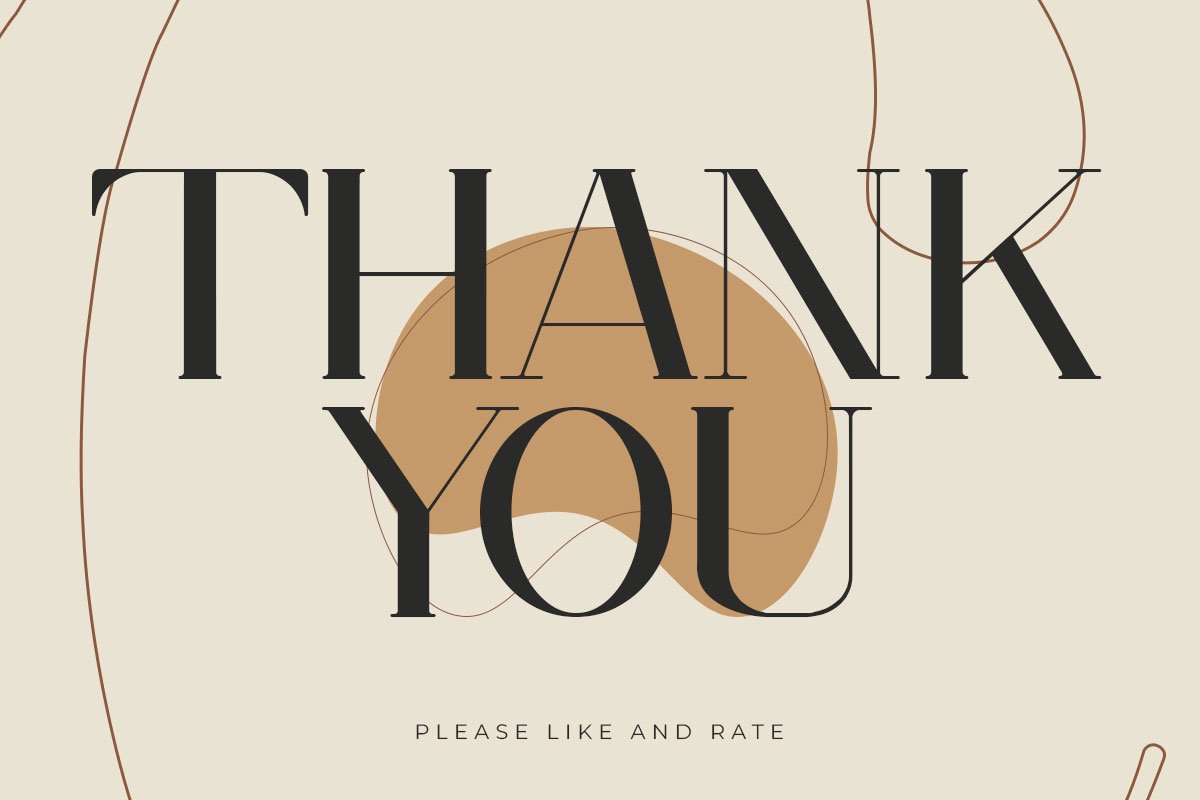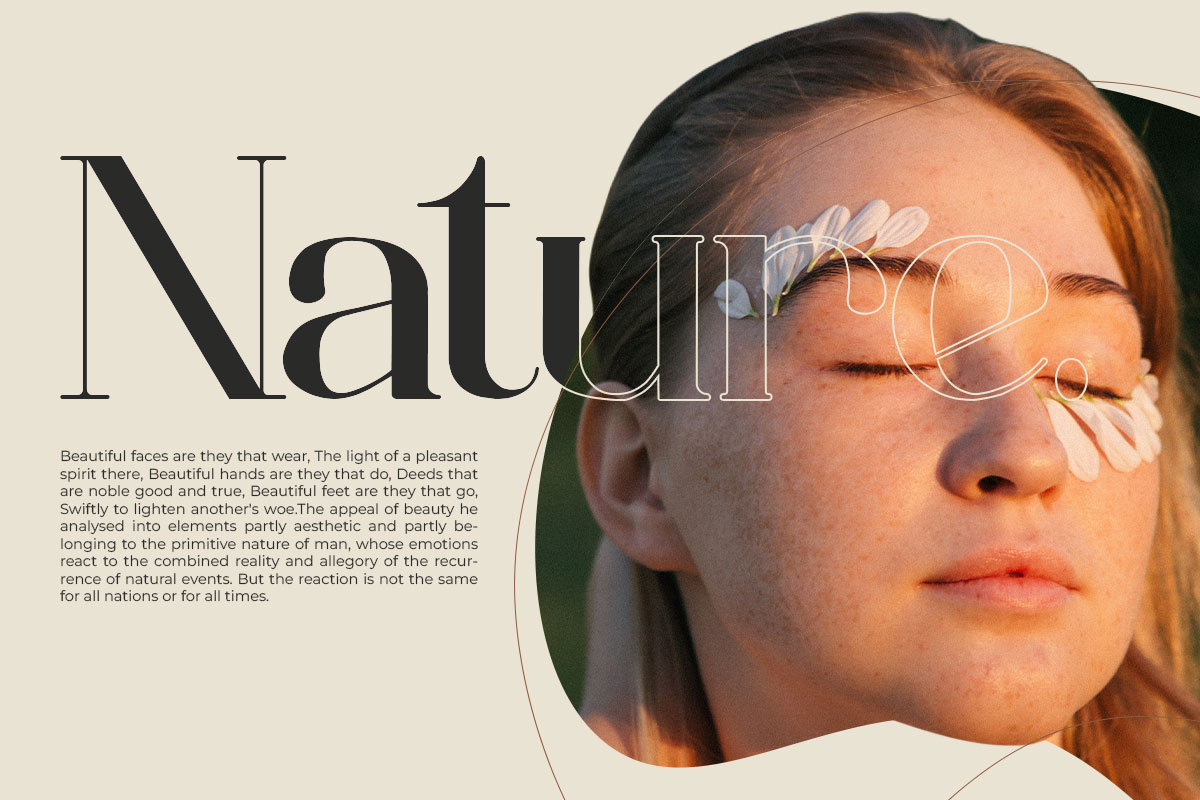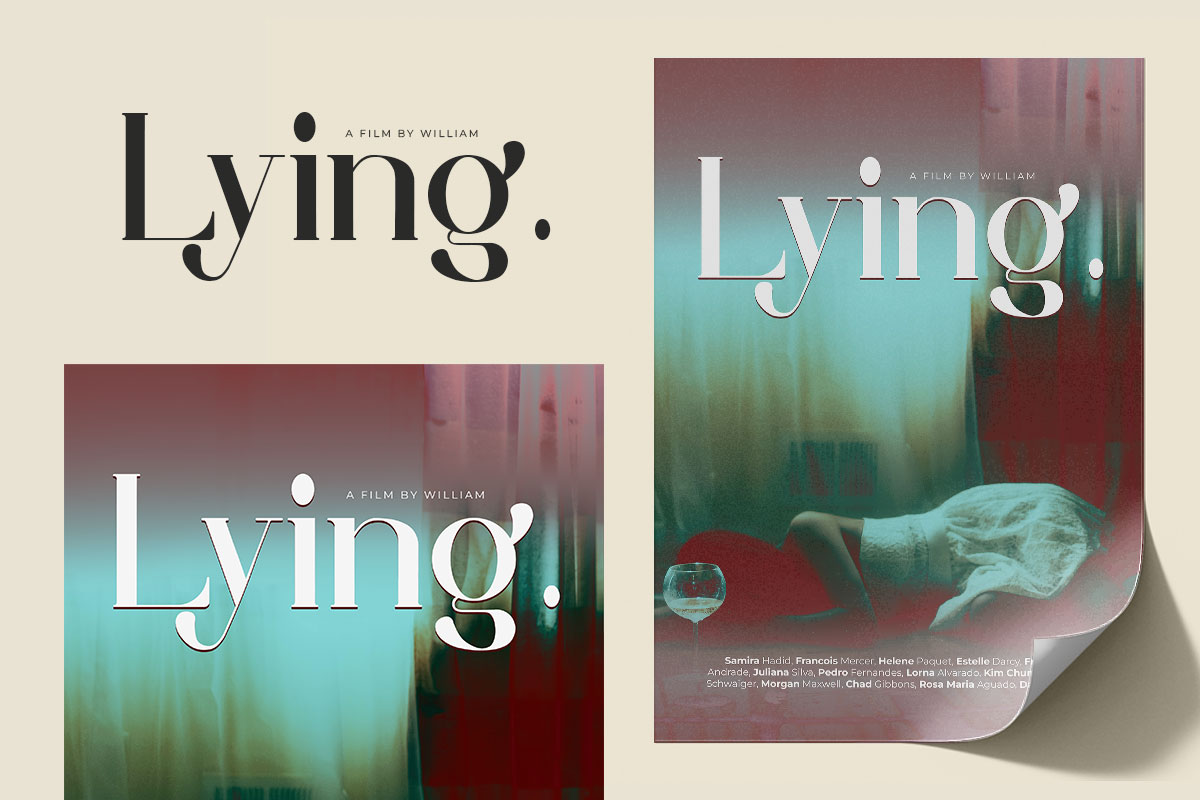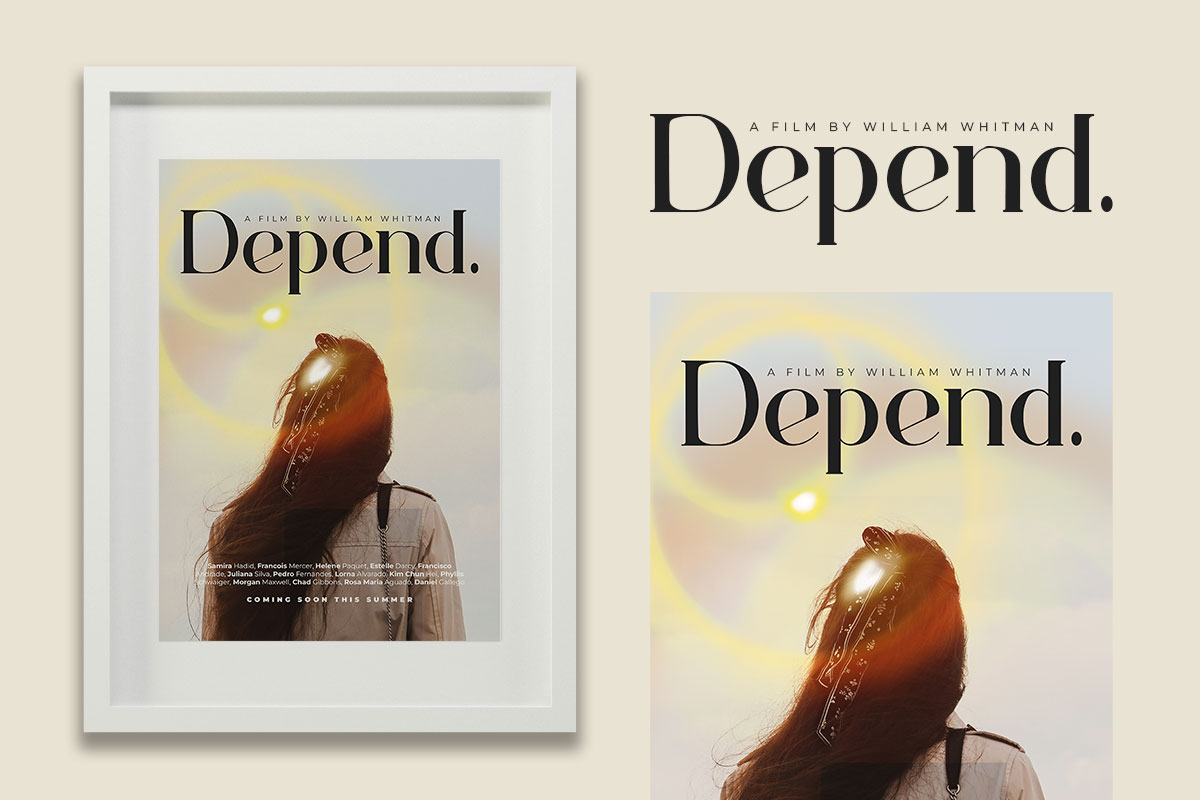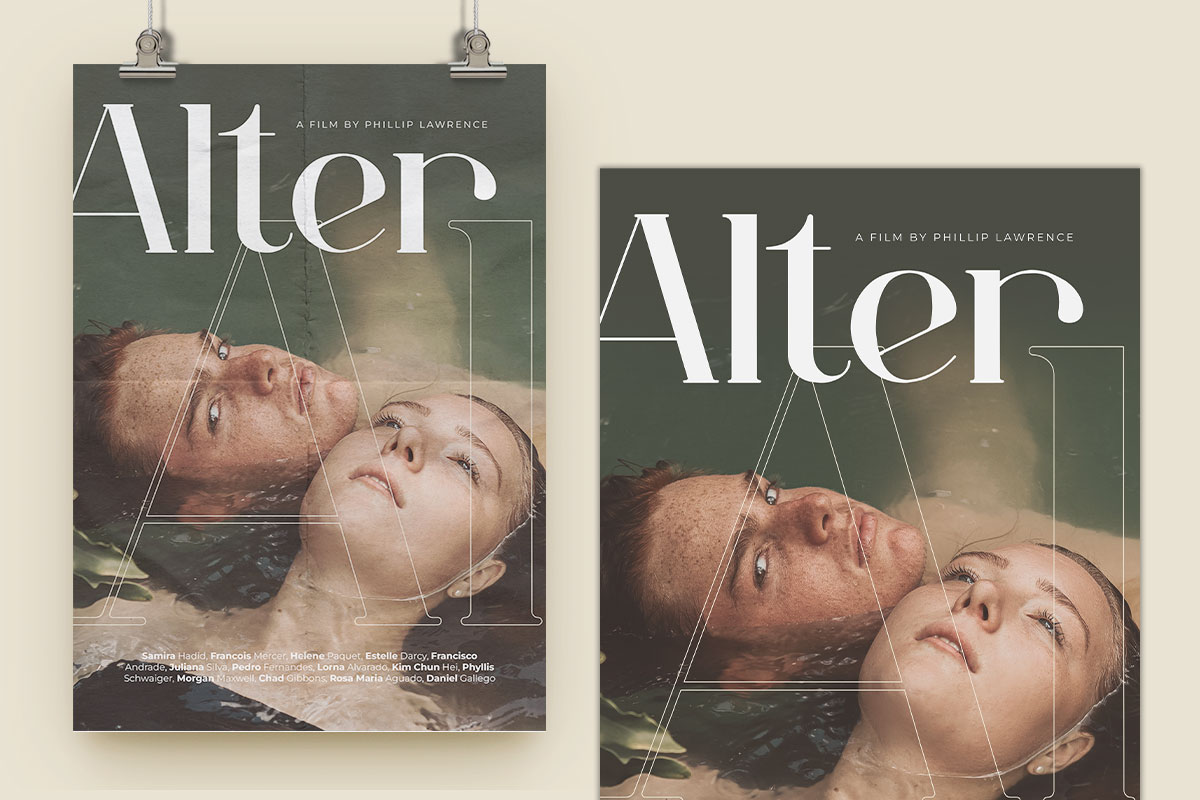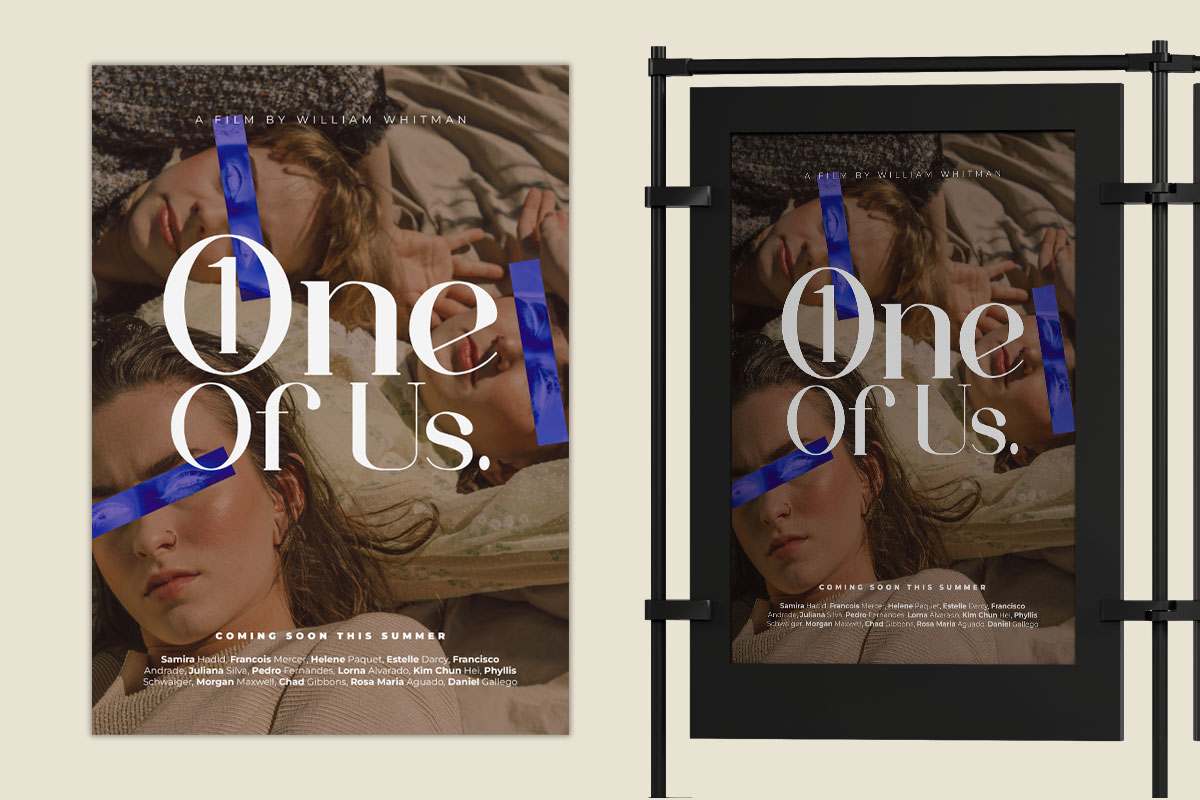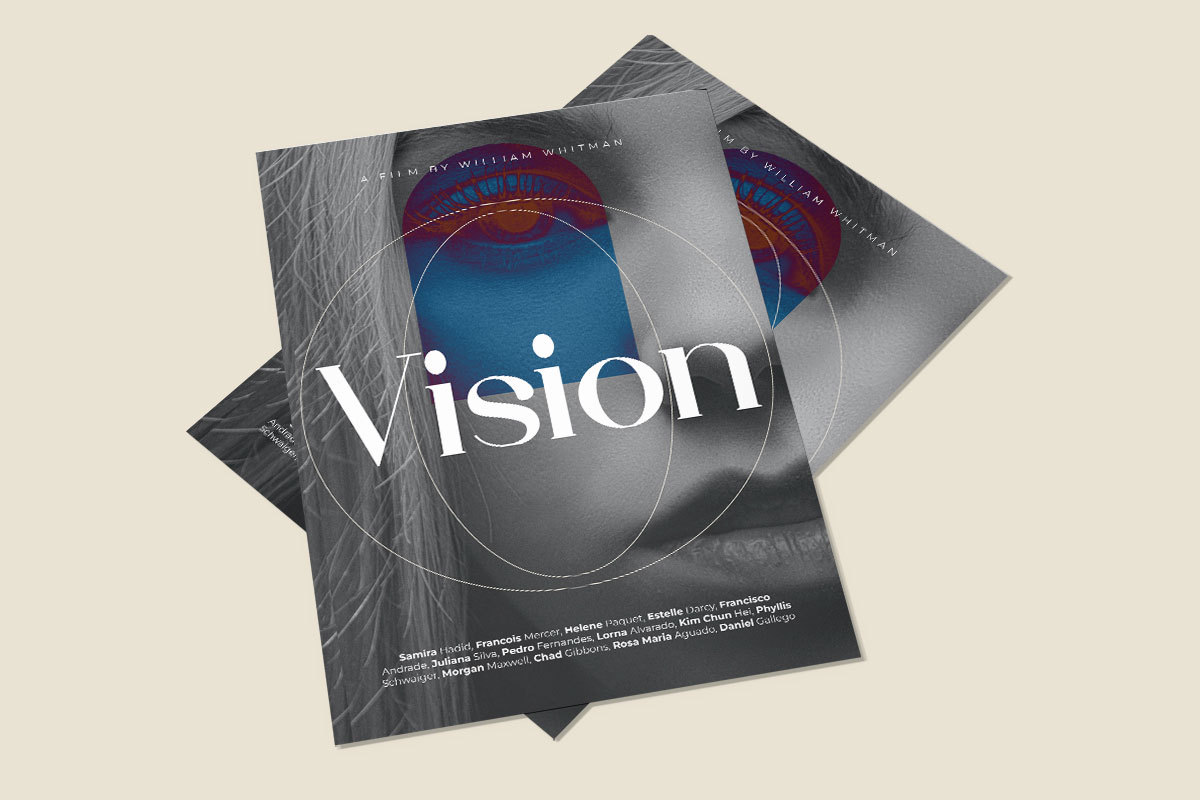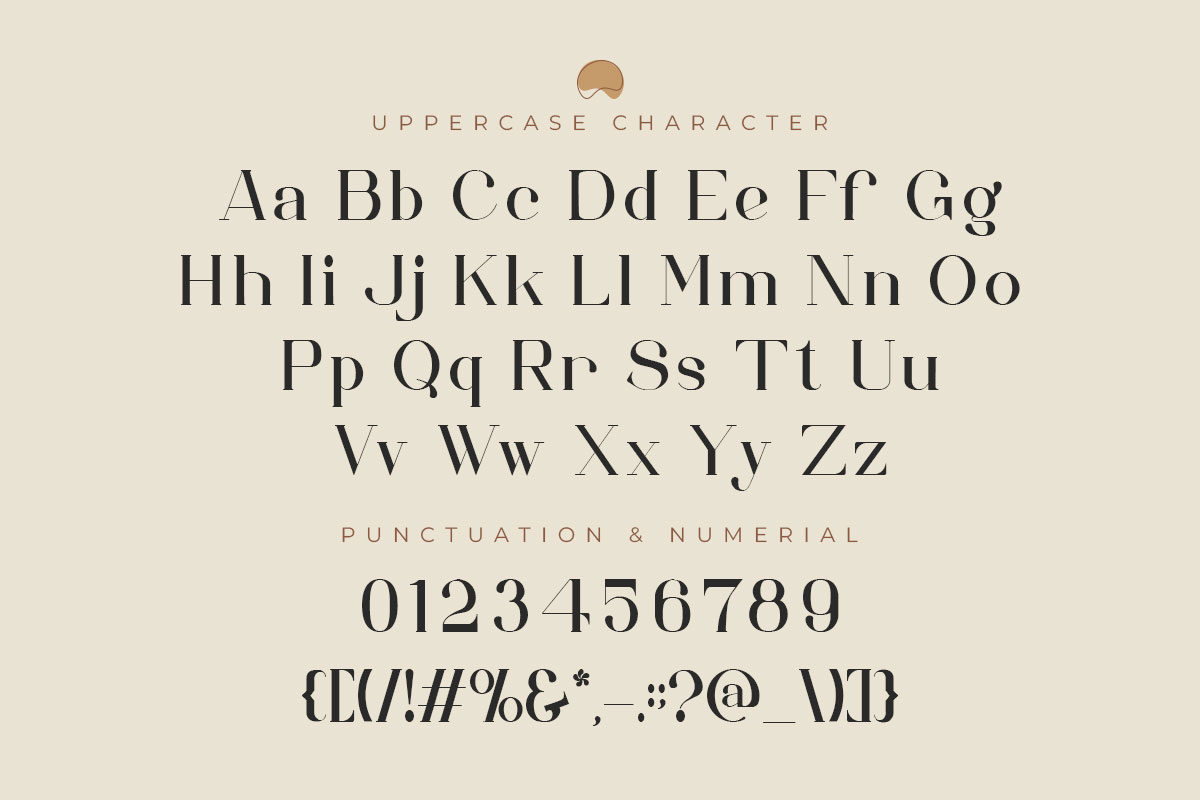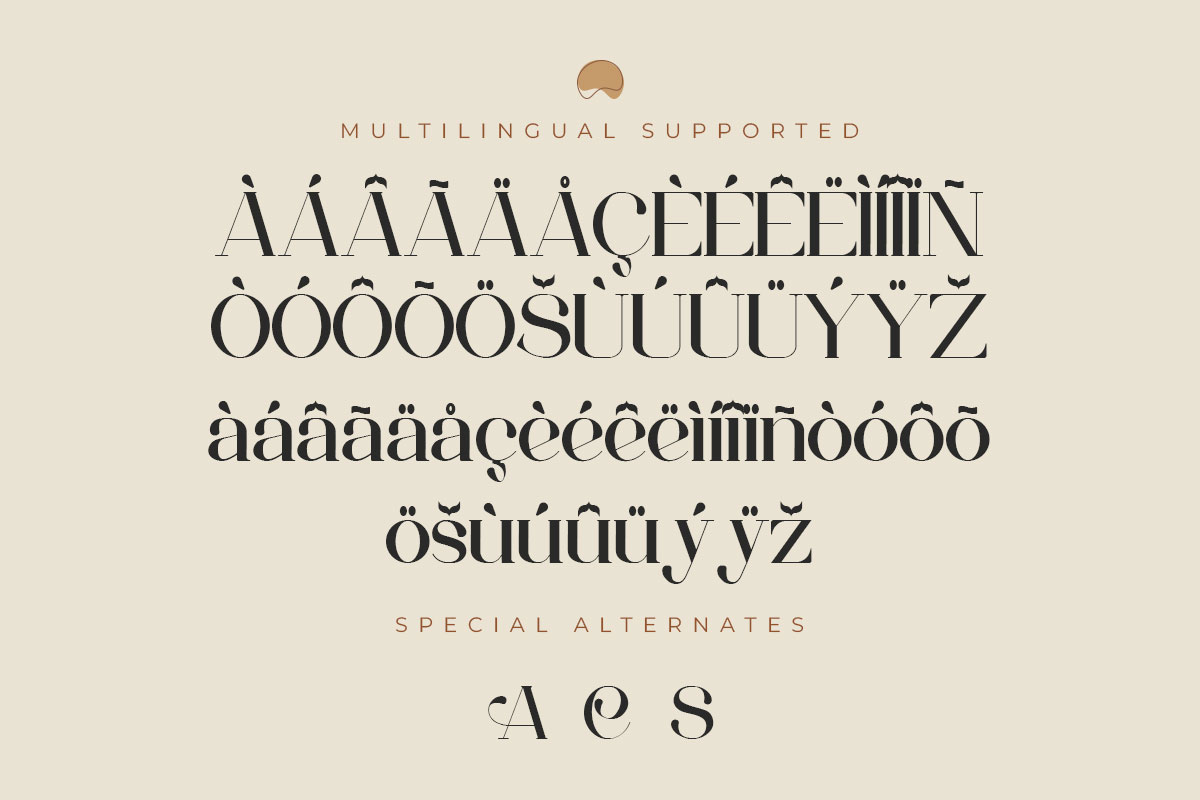
Chelsea Elegant Serif Font is a classic font that has a moderation serif on each letter. You need extra attention to know the serif in this font. Chelsea Elegant Serif Font is a clean, elegant-looking serif font. Chelsea Elegant Serif Font is a font that can be read and understood from a distance. However, this font is not suitable for writing long sentences or blog content, as well as writing in books and magazines. This font is suitable for use as a short title for a product. Chelsea Elegant Serif Font is the best font to use for signage, posters, or wall decoration for cafes, boutiques, or flower shops. Chelsea Elegant Serif Font was created to highlight the elegant and formal impression of every brand that chooses. these fonts Our collection of serif fonts is compatible for use as Figma fonts, Canva fonts, Freepik Fonts, and Adobe Fonts. They also work as Windows Fonts and Apple Fonts. For your social media needs, you can use and install fonts in our collection of serif fonts to use as Instagram Fonts, Facebook Fonts, and Twitter Fonts.